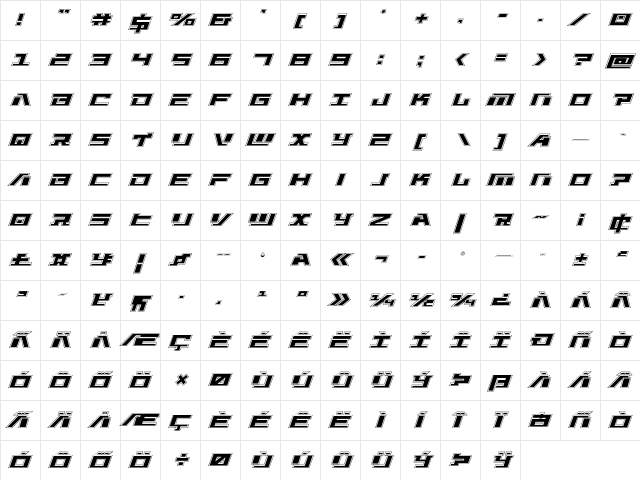
War Machine Academy Italic
Design Context for War Machine Academy Typeface
War Machine Academy is a composed and adaptable typeface that performs quietly and consistently across a wide range of design contexts. The dynamic lean of this cut emphasises speed and emphasis in any layout.
Pro Tip: Try War Machine Academy for annotation and caption copy alongside an upright companion — the contrast in angle creates a dynamic but ordered typographic system.